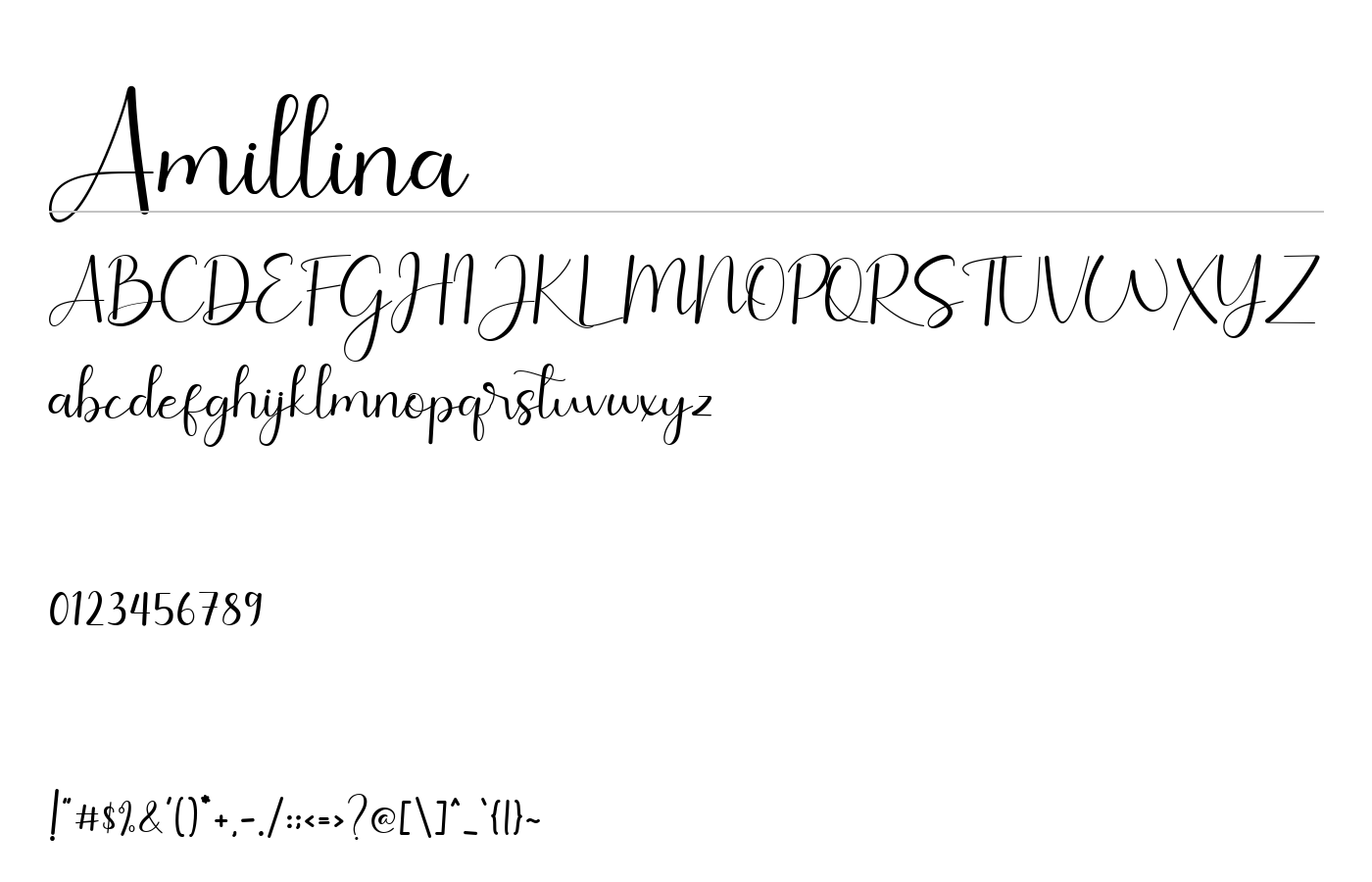
Amillina is a delicate script font characterized by its elegant, flowing strokes and a light, airy feel. Its thin lines and subtle variations in thickness give it a graceful, handwritten appearance that works beautifully for invitations, branding, and feminine design projects. This font adds a touch of sophistication and charm, making it ideal for logos, greeting cards, and stylish editorial layouts.
Amillina Font
About Amillina Font
| Font family | Amillina Font |
| Designer | AEN Creative Studio 2020 |